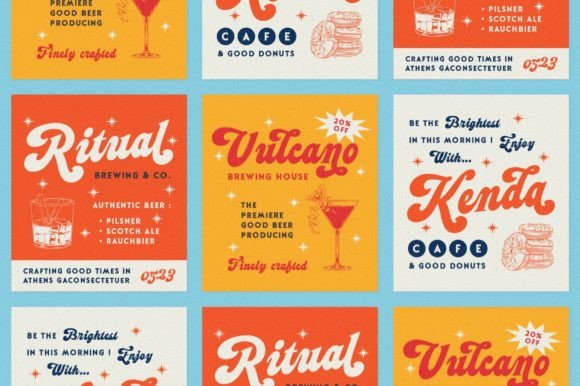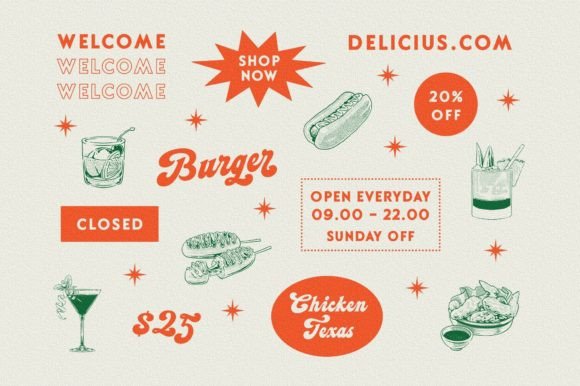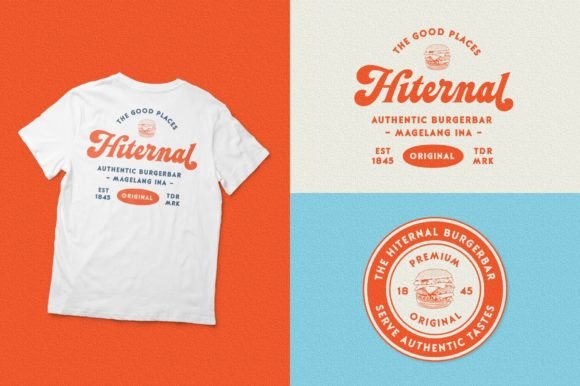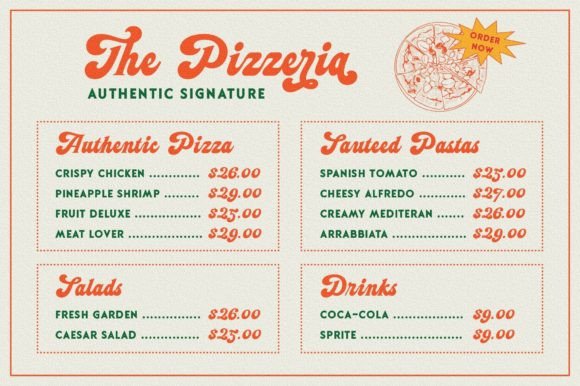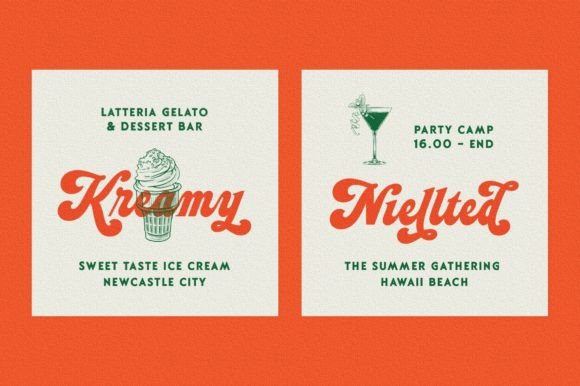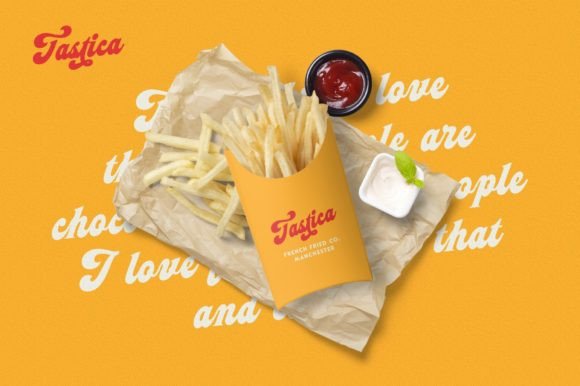
Introduction to Hittedal Font
Have you ever found yourself stuck in a creative rut, staring at a blank page or screen, desperately searching for the perfect font to bring your vision to life? For many designers, this is a frustrating yet familiar experience. But what if you had access to a font that could elevate any project, adding a touch of sophistication and style that leaves a lasting impression?
Enter the Hittedal Font, a bold and eye-catching display font that’s sure to be a game-changer for designers of all levels. With its strong retro vibe and high-quality design, this font is the perfect addition to any creative project, from posters and flyers to digital graphics and more.
Key Features of Hittedal Font
- High-quality design resource ideal for creative projects, including graphics, logos, and typography.
- Unique, modern font with a transparent background, allowing for versatility and customization.
- Designed to be scalable, suitable for use in various resolutions and sizes, from small text to large headings.
- Perfect for designers and artists looking for a high-quality, unique font to elevate their creative project.
- Supports a wide range of languages, making it a valuable resource for multilingual designs.
Honest Review: Hittedal Font
One of the things that works well with the Hittedal Font is its versatility. It comes in a range of weights and styles, making it easy to find the perfect fit for your design. The font also features a transparent background, which is perfect for designers who want to create a clean and minimalist look.
Here are some of the key features that I liked about the Hittedal Font:
- High-quality design: The font is well-crafted and looks great on both digital and print projects.
- Customizable: The font comes in a range of weights and styles, making it easy to find the perfect fit for your design.
While the Hittedal Font is a great resource, there are a few limitations to be aware of:
- Limited language support: The font may not support certain languages or character sets, which could be a limitation for designers working on projects that require a specific language.
Overall, I’m impressed with the Hittedal Font and would definitely recommend it to designers looking for a high-quality font for their creative project. Just be aware of the limitations mentioned above.
The Hittedal Font is commonly used in creative projects, such as logos, social media posts, presentations, and documents. Its high-quality design and transparent background make it a versatile choice for a wide range of applications.